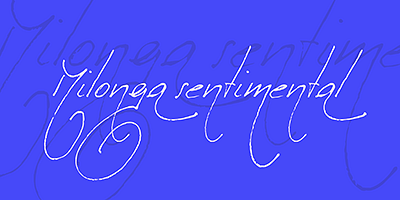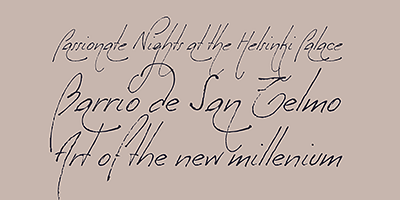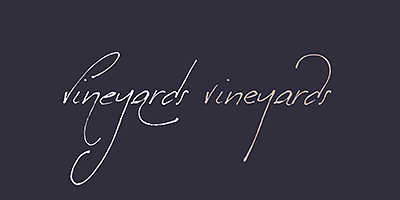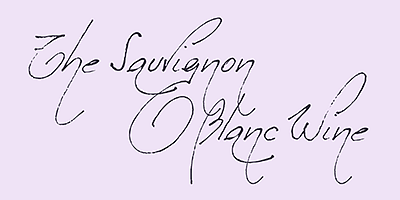
Milonguita was designed so that readers can experience the passion and spontaneity of this dancing style through words. Users can play with the upwards and downwards patterns of the letters creating different images and textures and thus, making texts flow smoothly and naturally, just as a warm piece of Milonga would.